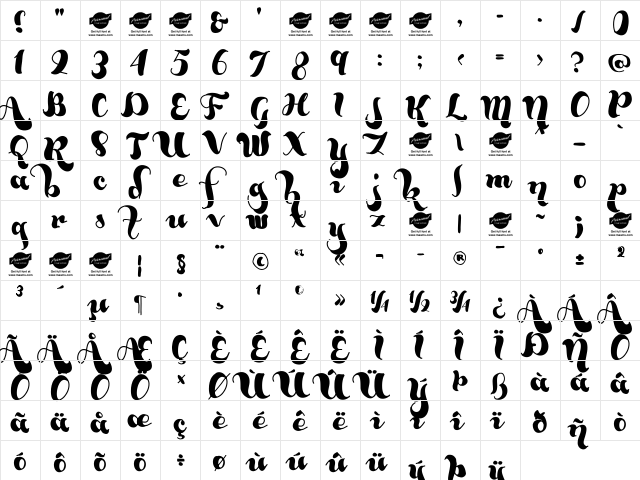
Bumblebees Demo Regular
Design Context for Bumblebees Demo Typeface
Bumblebees Demo is a composed and adaptable typeface that performs quietly and consistently across a wide range of design contexts.